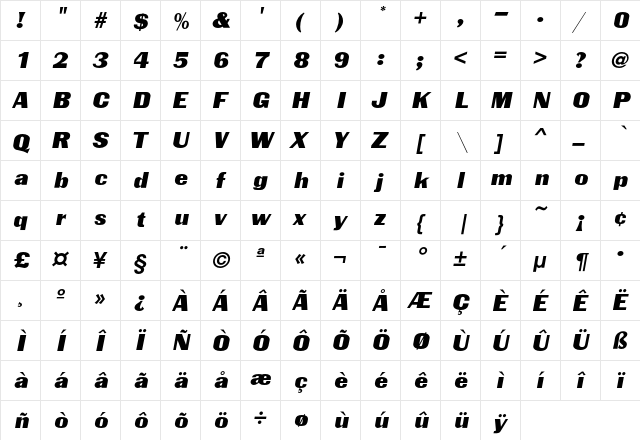
CharterOak Normal
Design Context for CharterOak Typeface
CharterOak is a composed and adaptable typeface that performs quietly and consistently across a wide range of design contexts.